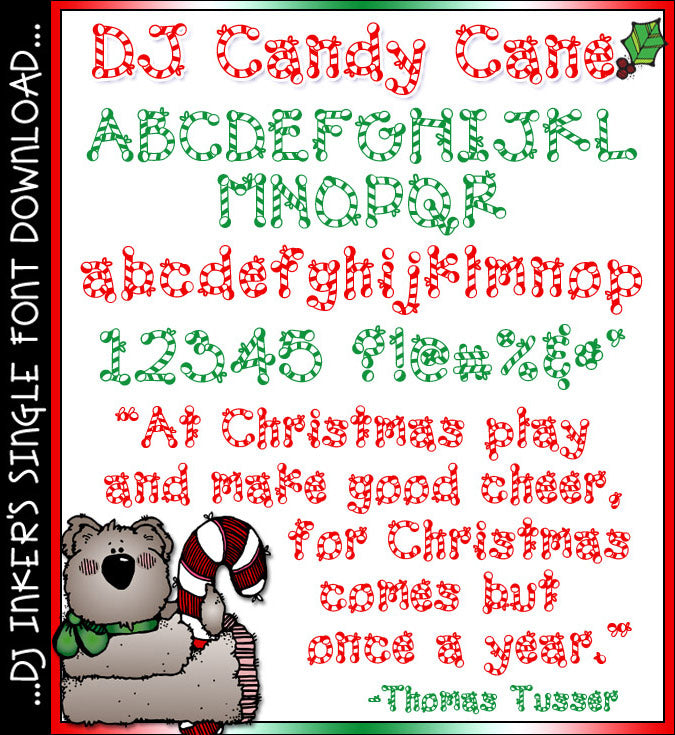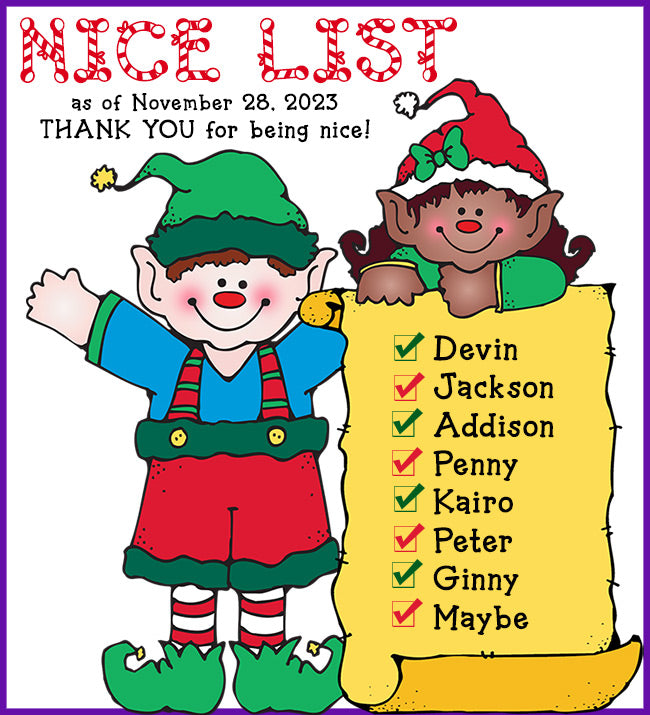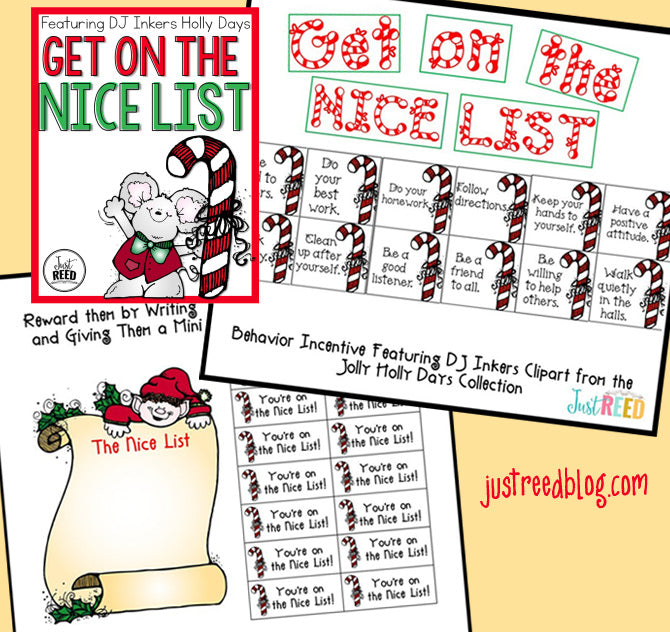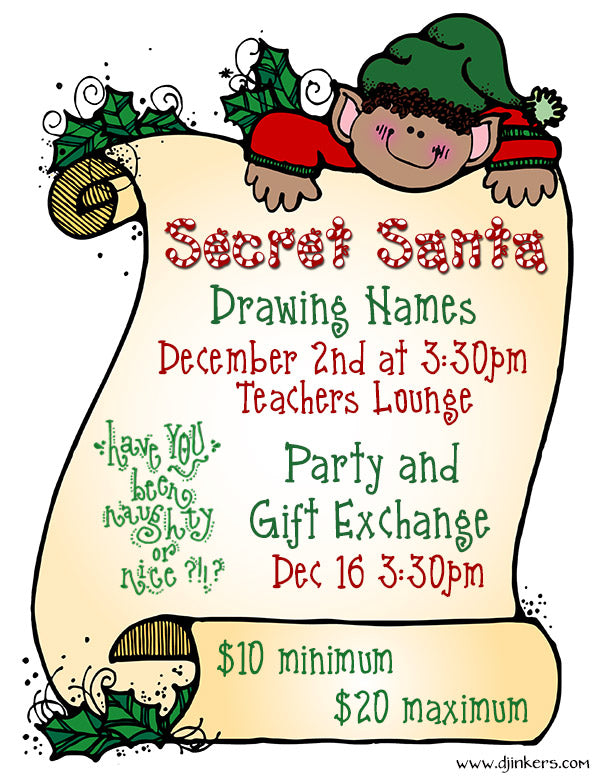
A sweet Candy Cane Font for Christmas and holiday smiles by DJ Inkers
DJ Candy Cane Font Download
A sweet Candy Cane Font for Christmas and holiday smiles by DJ Inkers
DJ Candy Cane Font Download
Give yourself the gift of sweet holiday lettering! Our DJ Candy Cane font is perfect for typing seasons' greetings, Christmas newsletters, gift tags, letters to Santa, holiday crafts and decorations. This festive font is jolly & bold, so it works best for headlines and larger size text. Unwrap a smile today!